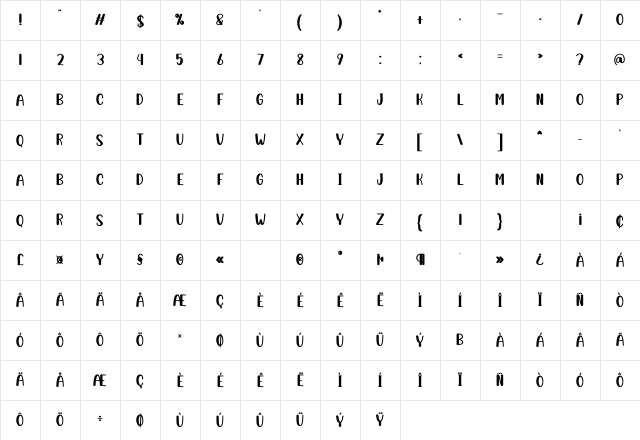
Santa Milkshake Regular
Design Context for Santa Milkshake
Santa Milkshake is a composed and adaptable typeface that performs quietly and consistently across a wide range of design contexts.
Pro Tip: Use Santa Milkshake in both headline and body roles to test its range before committing to a single application.